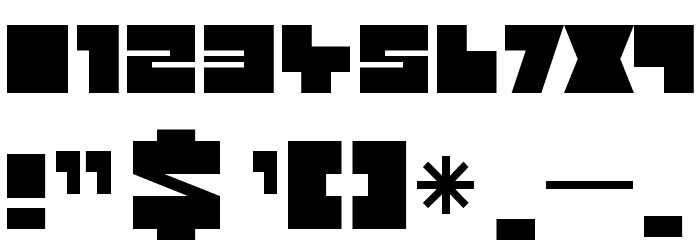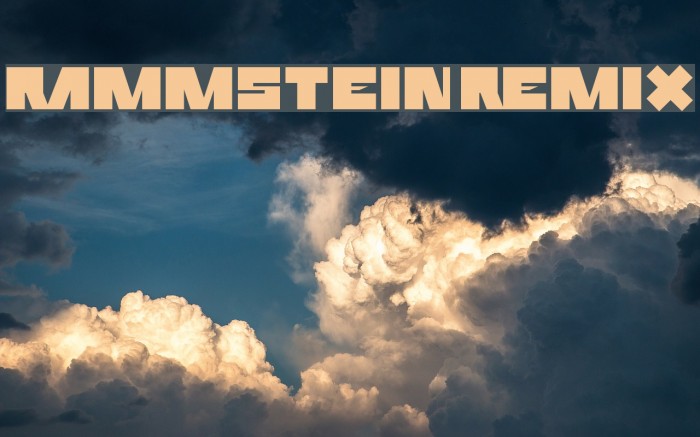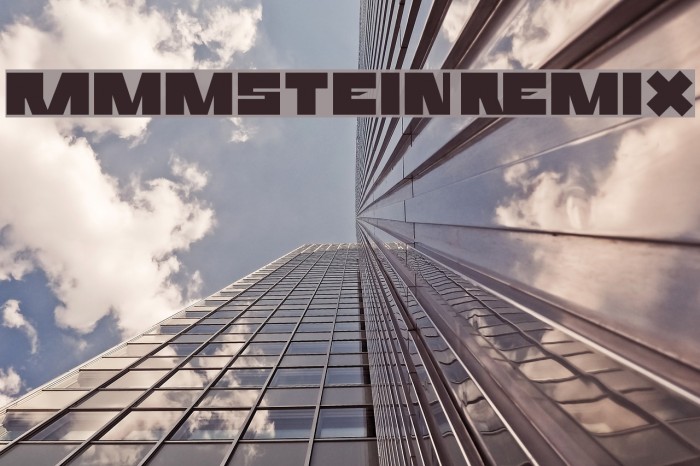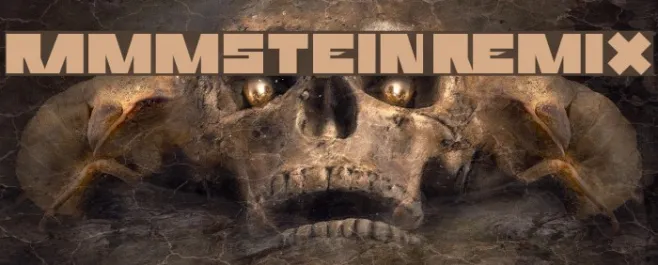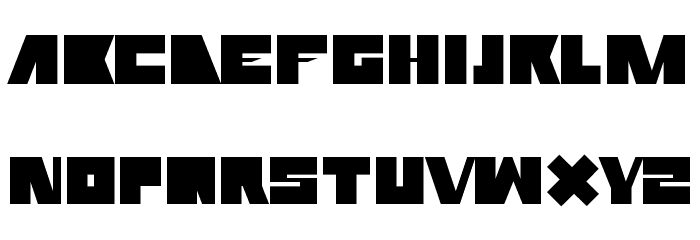
Rammstein Remix Font
Rammstein Remix Description
This font features a bold, geometric design with sharp angles and a blocky appearance. The characters are constructed with a strong emphasis on symmetry and uniformity, giving it a futuristic and industrial feel. The uppercase letters are particularly striking, with a consistent height and width that create a cohesive look. The lowercase letters maintain the same boldness, ensuring readability while preserving the unique style. Numbers and special characters follow the same design principles, making them easily recognizable and visually appealing. The overall aesthetic is modern and edgy, suitable for projects that require a strong visual impact.
| Proposed Projects | Ideal for music album covers, video game titles, posters, and branding that requires a strong, modern aesthetic. |